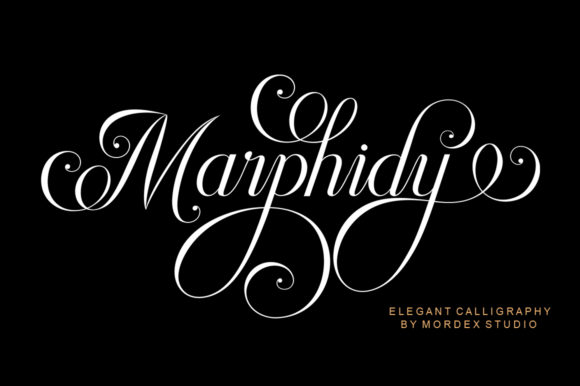
Marphidy Script: A Playful Font That’s Making Waves in Design and Branding
In the ever-evolving world of typography, fonts are more than just tools for communication—they’re expressions of identity, creativity, and personality. Among the many script fonts available today, Marphidy Script stands out as a unique blend of charm, elegance, and playfulness. This font has captured the attention of designers, marketers, and content creators who are looking to infuse their work with a sense of whimsy and sophistication. In this article, we’ll explore what Marphidy Script is, why it’s gaining traction, and how it aligns with current creative and business trends.
What Is Marphidy Script?
Marphidy Script is a beautifully crafted script font that brings a sense of motion and life to any text it touches. Its characters appear to dance along the baseline, creating a dynamic visual rhythm that sets it apart from more static or traditional script styles. The font is PUA (Private Use Area) encoded, which means users can easily access its full range of glyphs and swashes using standard font editors. This makes it highly versatile for both digital and print applications.
Designed with an eye for detail, Marphidy Script features fluid strokes, soft curves, and subtle variations in weight that give each letter a hand-drawn feel. It’s perfect for projects that require a touch of elegance without sacrificing readability. Whether used for invitations, branding materials, or social media content, Marphidy Script adds a personal and artistic flair that resonates with audiences.
The Rise of Playful Typography in Modern Design
In recent years, there has been a noticeable shift in design trends toward more expressive and emotive typography. As consumers become more visually savvy, they are drawn to content that feels authentic, engaging, and emotionally resonant. This has led to a growing appreciation for fonts like Marphidy Script, which offer a balance between professionalism and personality.
Modern branding strategies emphasize storytelling and emotional connection. Fonts play a crucial role in this process by setting the tone and mood of a brand’s message. Marphidy Script, with its playful yet elegant style, allows brands to communicate a sense of approachability and creativity. This is particularly valuable in industries such as fashion, lifestyle, and entertainment, where aesthetics and emotional appeal are key differentiators.
Moreover, the rise of digital platforms and social media has increased the demand for visually striking content. With attention spans shrinking, brands must find ways to stand out. Marphidy Script offers a solution by adding visual interest and uniqueness to headlines, call-to-action buttons, and other elements that need to capture attention quickly.
Why People Are Paying Attention to Marphidy Script
The popularity of Marphidy Script can be attributed to several factors. First and foremost, it meets the needs of a generation that values individuality and authenticity. In a world where mass-produced content is the norm, Marphidy Script provides a way to inject originality into designs. Its unique character shapes and dynamic flow make it ideal for creating memorable visuals that leave a lasting impression.
Another reason for its rising popularity is its adaptability. Marphidy Script works well across a variety of mediums and formats, from web design to print. It can be used in both short and long-form content, making it a versatile choice for professionals in different fields. Marketers, for example, might use it for email campaigns or promotional banners, while freelancers could incorporate it into their portfolios or client presentations.
Additionally, the font’s PUA encoding ensures that users have access to a wide range of stylistic options. This feature is especially useful for designers who want to customize their typography to match specific project requirements. The ability to tweak individual characters and swashes allows for greater creative control and flexibility.
How Marphidy Script Fits Into Broader Industry Trends
The increasing use of Marphidy Script reflects broader industry trends related to personalization, digital transformation, and the integration of art into everyday communication. As businesses strive to create more meaningful connections with their audiences, they are turning to design elements that reflect their brand’s personality and values.
For instance, in the realm of user experience (UX) design, typography plays a critical role in shaping the overall look and feel of a website or app. Marphidy Script can be used to highlight important information or add a touch of elegance to interface elements. Its playful nature also makes it suitable for educational platforms or apps targeting younger demographics, where engagement and fun are essential.
In the marketing sector, the use of expressive typography has become a powerful tool for standing out in a crowded marketplace. Brands are increasingly leveraging custom fonts to create a distinct visual identity that resonates with their target audience. Marphidy Script, with its distinctive style, helps brands convey a sense of creativity and innovation—qualities that are highly valued in today’s competitive landscape.
Practical Applications of Marphidy Script
Marphidy Script is not just a decorative font—it’s a functional design element that can enhance various types of projects. Here are some practical examples of how it can be used:
- Branding and Logo Design: Marphidy Script can be used to create logos that exude charm and personality. Its flowing lines and dynamic shapes make it ideal for businesses in the fashion, beauty, or lifestyle industries.
- Social Media Content: Social media platforms thrive on visual appeal, and Marphidy Script can help content stand out. It can be used for captions, headlines, or even in background graphics to add a sense of movement and energy.
- Email Marketing: Email campaigns benefit from clear and engaging typography. Marphidy Script can be used sparingly to draw attention to key messages or calls to action without overwhelming the reader.
- Print Materials: From invitations to brochures, Marphidy Script adds a touch of elegance to printed materials. Its hand-drawn appearance gives a sense of craftsmanship and authenticity.
- Web Design: On websites, Marphidy Script can be used for headings, navigation menus, or special promotions. It adds visual interest without compromising usability.
These applications demonstrate how Marphidy Script can be integrated into different aspects of design and marketing to achieve specific goals. Its versatility and aesthetic appeal make it a valuable asset for professionals across various industries.
Conclusion: Embracing Creativity Through Typography
As we continue to navigate an increasingly visual world, the importance of typography in shaping our experiences cannot be overstated. Fonts like Marphidy Script offer a unique opportunity to blend creativity with functionality, allowing designers and brands to express their personalities in new and exciting ways.
Whether you’re a professional designer, a marketer, or simply someone who appreciates beautiful typography, Marphidy Script is worth exploring. Its playful yet elegant style, combined with its technical flexibility, makes it a font that can elevate your work and connect with your audience on a deeper level. In a time when authenticity and creativity are more important than ever, Marphidy Script is a testament to the power of thoughtful design.